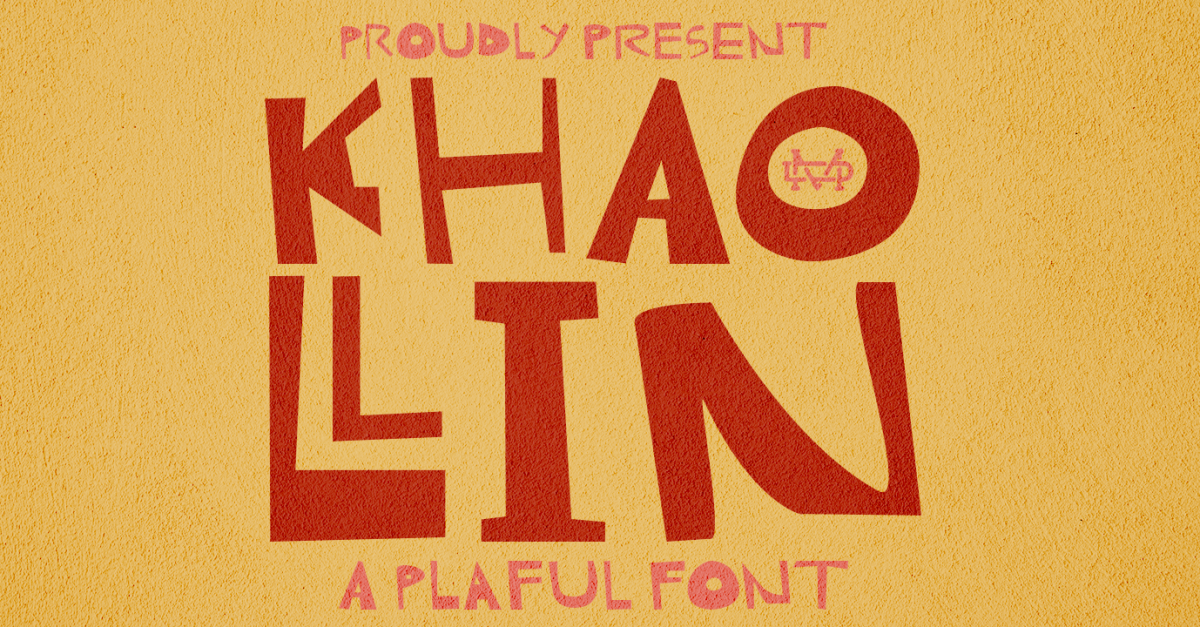
Khaollin -Unique Handwriting Font
Introducing The Khaollin is a playful font and will be perfect for book, title branding, product packaging, invitation, quotes, t-shirt, label, poster, logo etc.
•  Uppercase & Lowercase
•  Number & Symbol
•  International Glyphs
•  Multilingual support
•  ligature